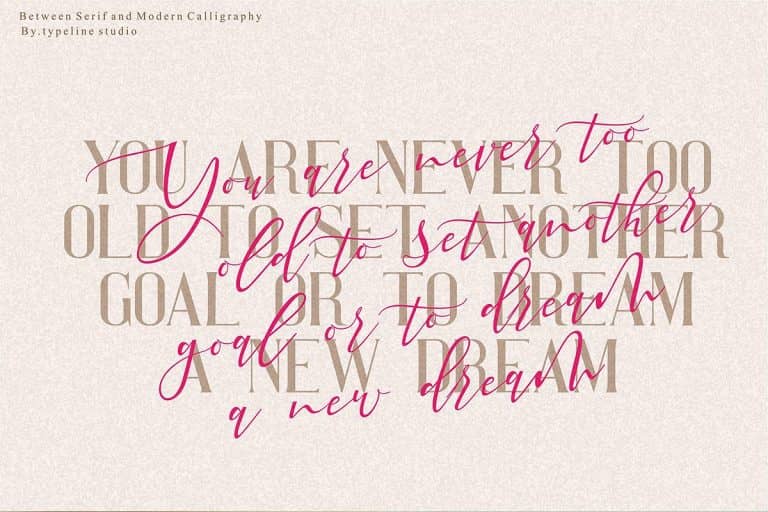
Pretty Woman Font Duo
Introducing! Pretty women, A beautiful serif and script typeface combo. The DUO typeface is ideal for making bold statements or adding a touch of class to your creations. Welcome to the world of Pretty Woman. Typeline studio created and published the font. Numbers, punctuation, alternatives, and additional languages are all included in this lovely typeface.
Pretty woman is a typeface that combines serif with modern calligraphy. It’s perfect for logo branding, wedding invitations, typography weddings, quotes, magazines, and anything else you can think of. With a light color like baby pink, the font looks fantastic. The font is ideal for creating business cards for a variety of companies.
NamePretty Woman Font Duo
StyleScript, Calligraphy
DesignerTypeline studio